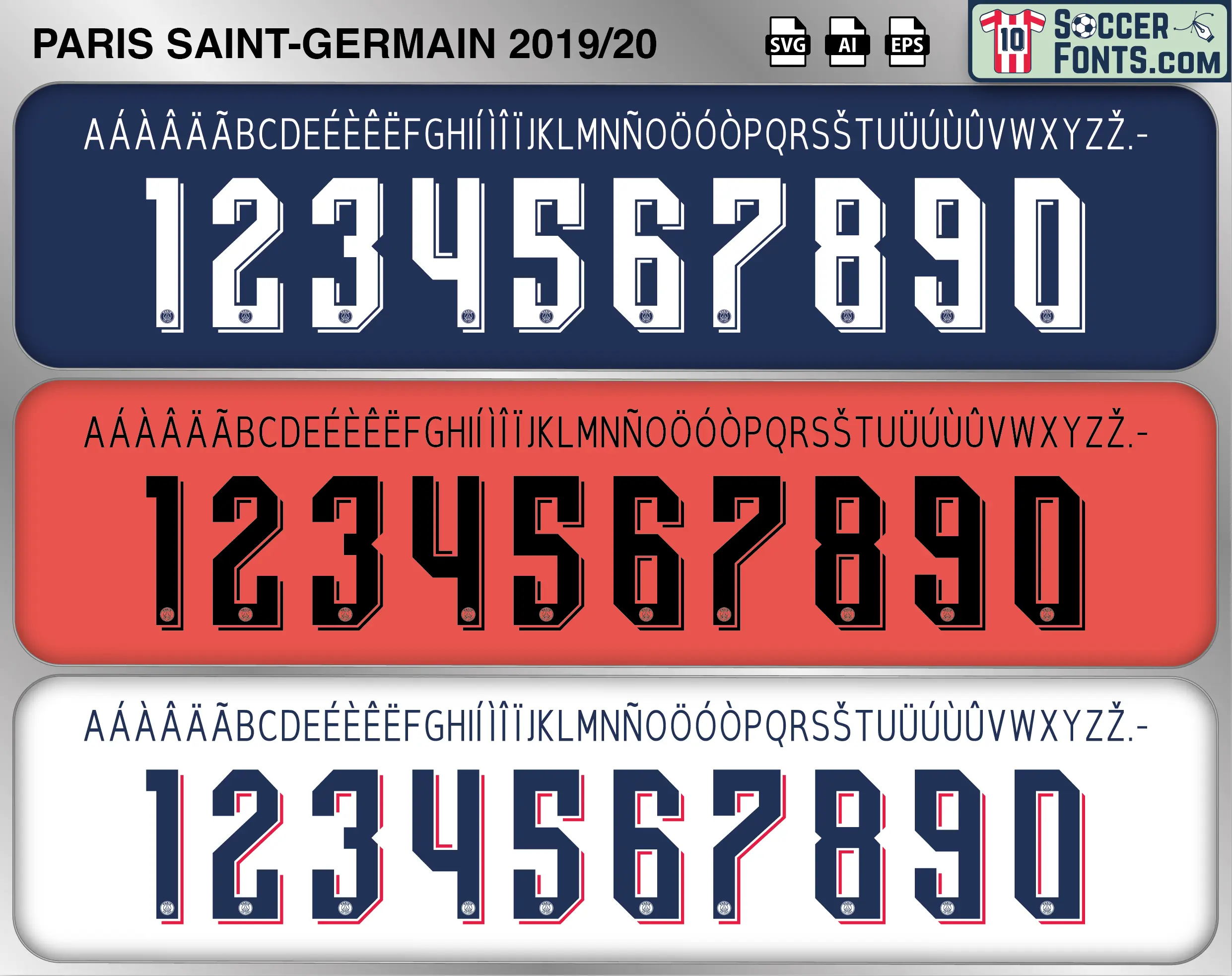
PSG 2019-20 Font
Download the PSG 2019-20 font, an editable soccer jersey lettering design in vector format inspired by the PSG kit style used during the 2019-20 football season. This football font artwork is prepared for football shirt recreations, custom jersey projects, football kit mockups and sports graphic design workflows.
The 2019-20 season became one of the most significant campaigns in Paris Saint-Germain history. Thomas Tuchel’s squad featured Neymar, Kylian Mbappé, Ángel Di María, Marco Verratti, Marquinhos, Thiago Silva, Mauro Icardi and Keylor Navas, giving PSG exceptional experience and attacking quality. The PSG 2019-20 font belongs to the club’s 50th-season era and a campaign in which the Paris side dominated French football while pursuing the European trophy that had become its primary ambition. PSG were declared Ligue 1 champions after the domestic season was curtailed, while they also completed the domestic treble by winning the Coupe de France and Coupe de la Ligue.
Europe ultimately defined the campaign. PSG eliminated Borussia Dortmund in the Champions League round of 16 before the competition resumed in Portugal as a single-match knockout tournament. A dramatic late comeback against Atalanta sent Paris into the semi-finals, where RB Leipzig were defeated 3-0. PSG consequently reached the UEFA Champions League final for the first time in club history, facing Bayern Munich in Lisbon. The PSG 2019-20 font is therefore connected with a landmark season and shirts worn by one of the most celebrated squads of the club’s modern era. Although Bayern won the final 1-0, PSG’s run represented a major breakthrough in its European history. For collectors and supporters, the PSG 2019-20 font recalls the Neymar-Mbappé partnership, Thiago Silva’s final campaign in Paris and an unprecedented journey to the Champions League final.